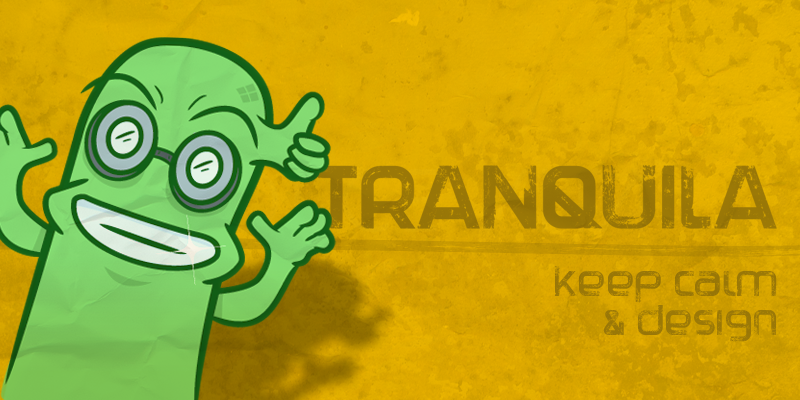
Preview and download Tranquila Font. Created by MuraKnockout Media + Design in Fancy Eroded styles with Demo license.
This is a DEMO version of my new font TRANQUILA. This is a dirty-irty-irty multipurpose font for you to get down with. Make your titles more thuggish ruggish and bold. Make your designs make a statement. Keep calm & design with Tranquila! This is a grunge font with one weight. The demo version includes an uppercase and lowercase set, as well as numbers. Purchase the full version for only 5$ here: http://muraknockout.com/tranquila ----------------------- Check out all of our fonts, free and premium, at: http://muraknockout.com ----------------------- Please DO NOT download this font and redistribute it on another website! For a full licensing agreement please check out: http://muraknockout.com/licensing |